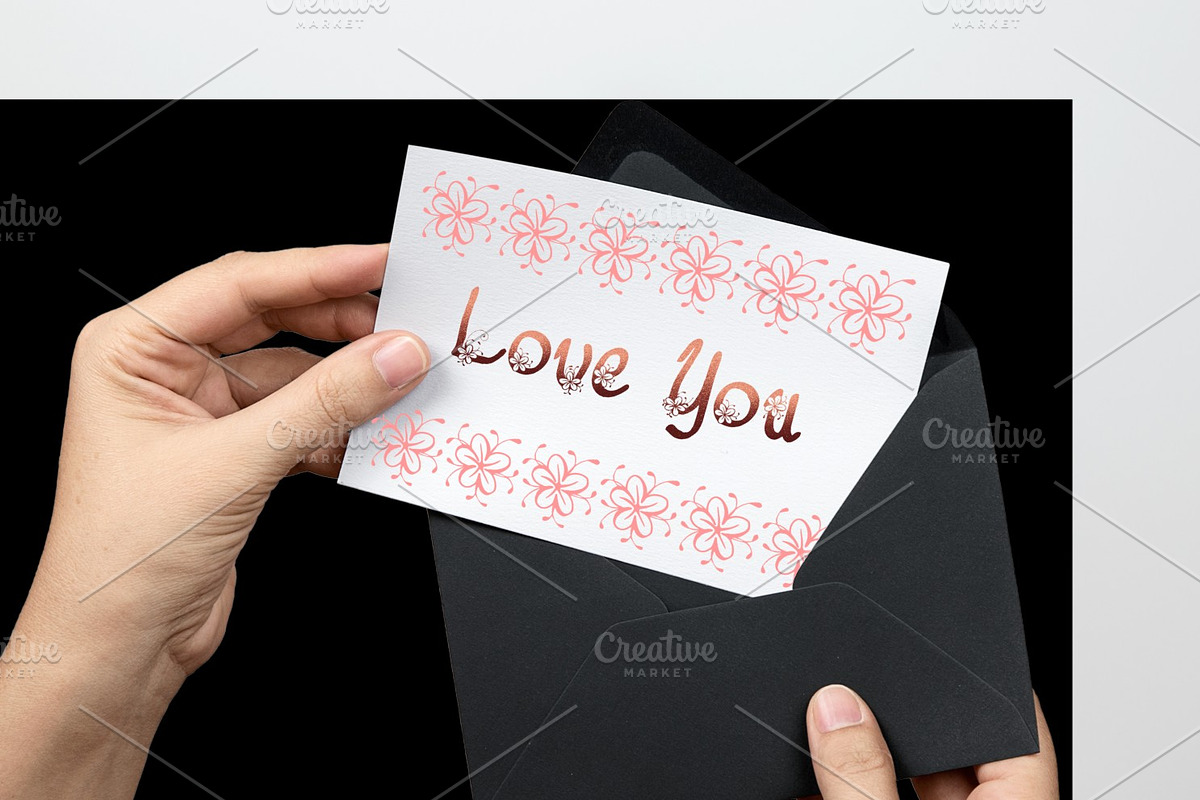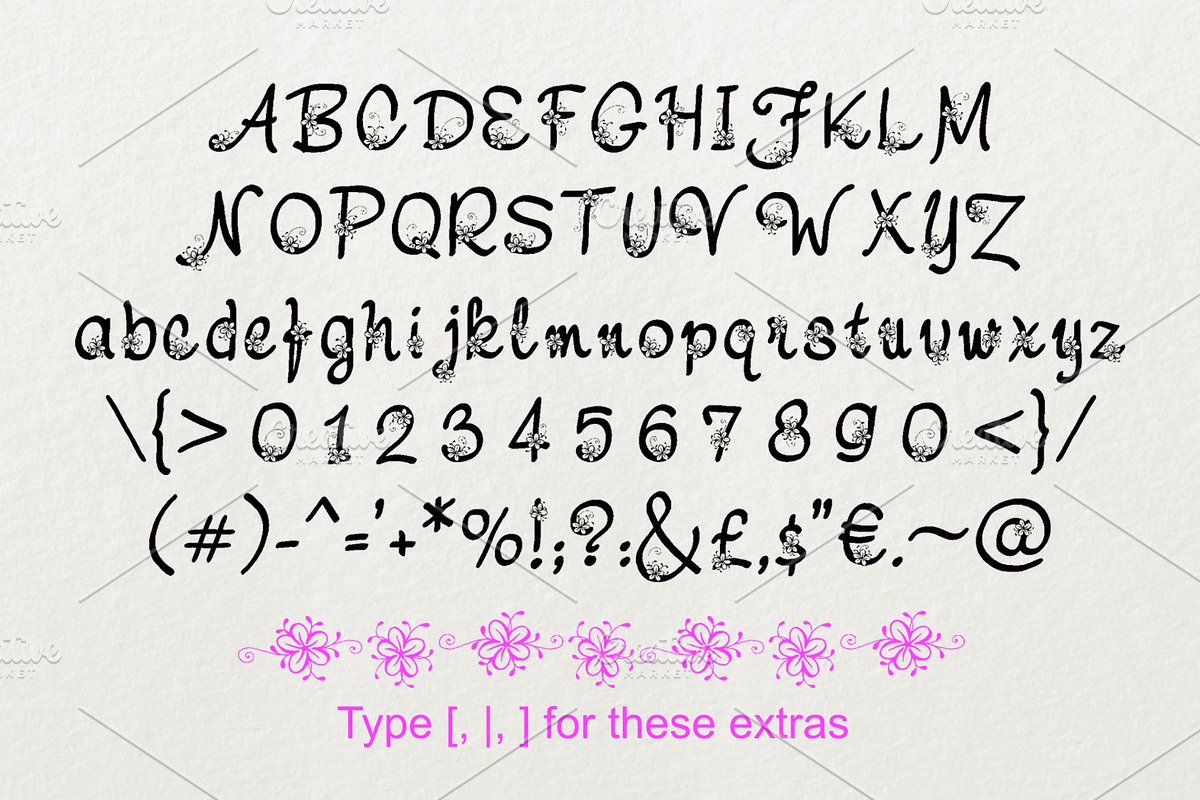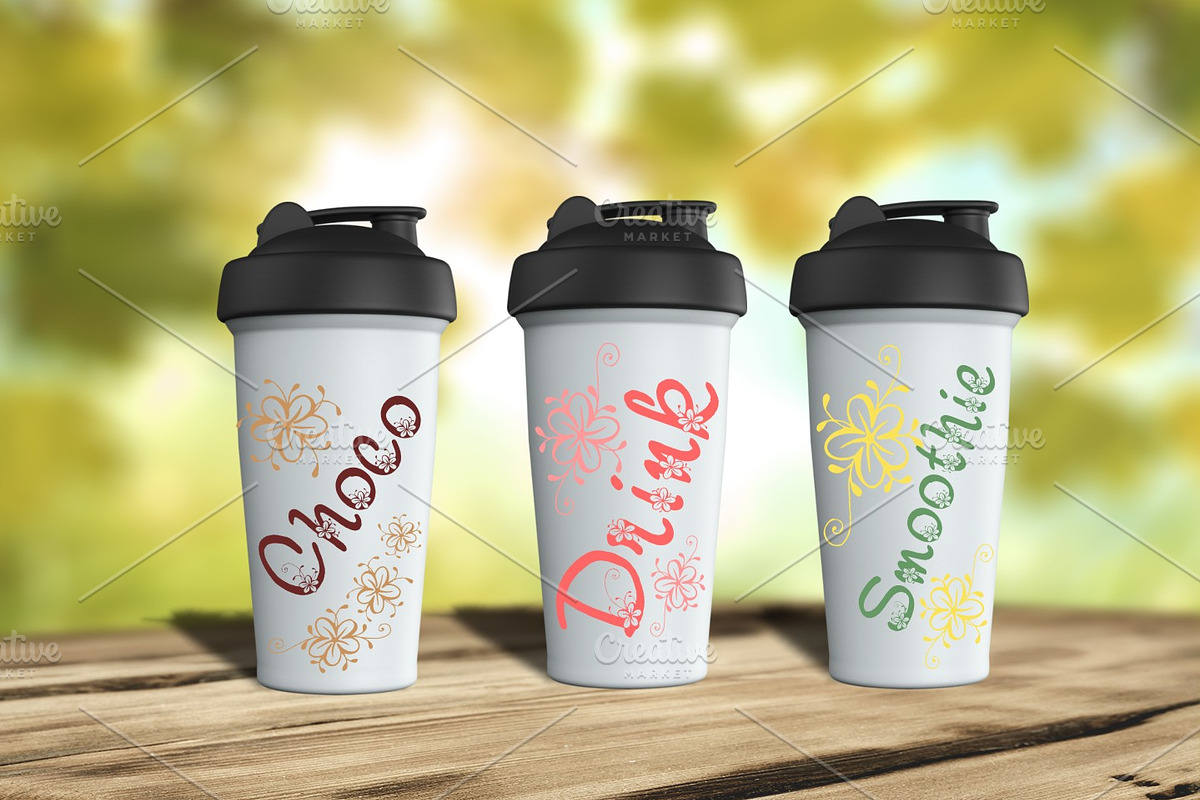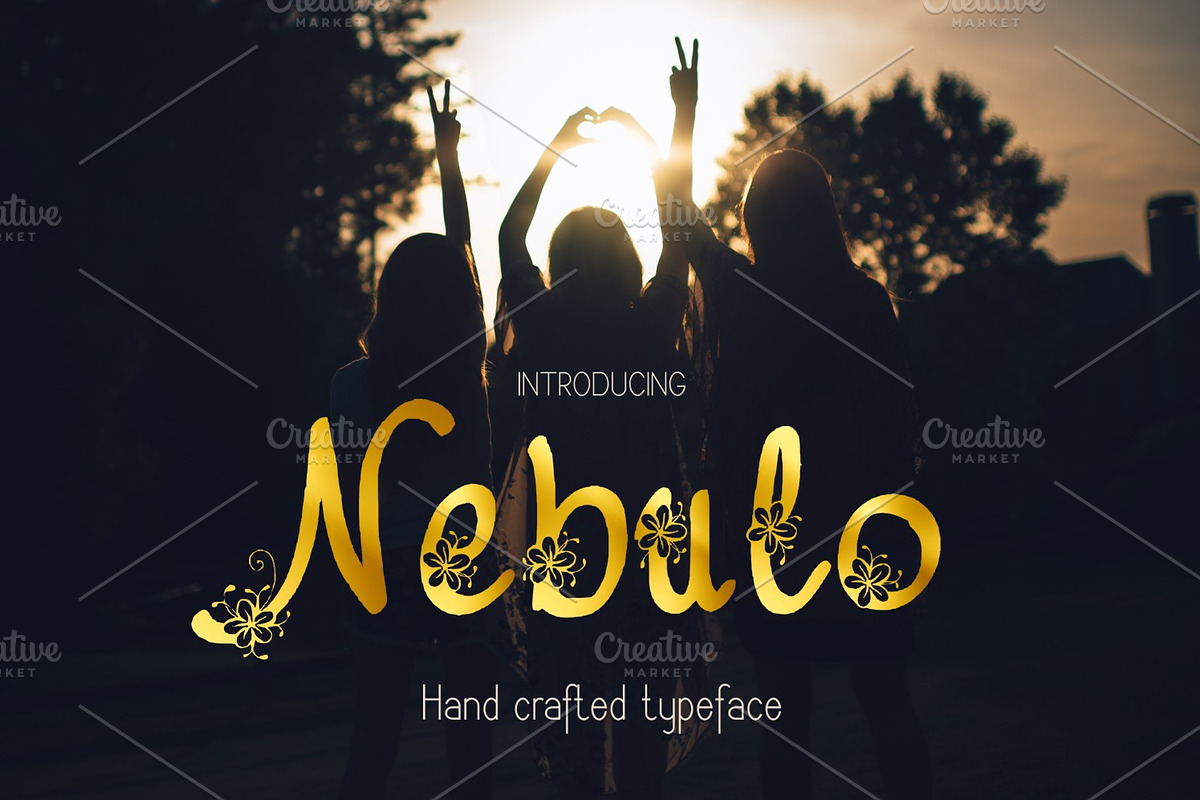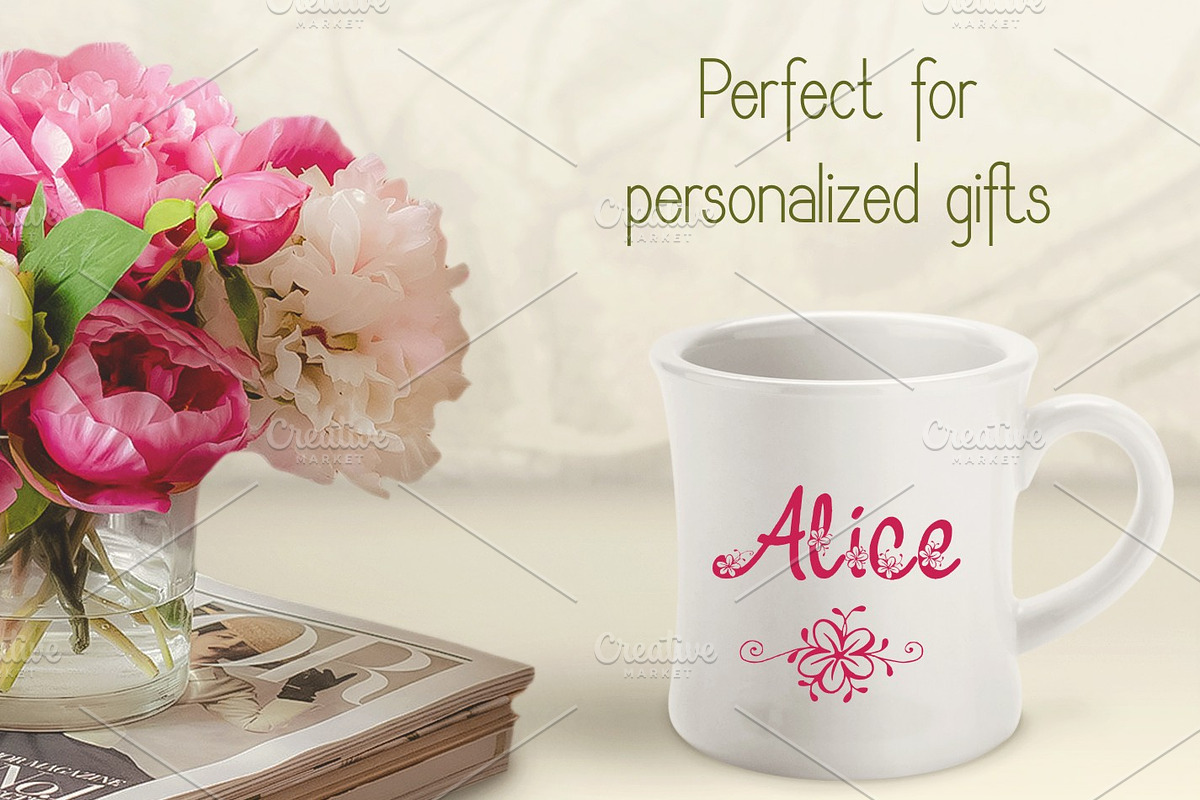
Nebulo Font
Introducing Nebulo hand drawn typeface.
Nebulo is perfect for product packaging, branding projects, wedding stationeries and homeware designs - or simply as a text overlay to any background image.
Nebulo Font by Digital Typeface Studio fits naturally into Branding, posters, packaging, typography.